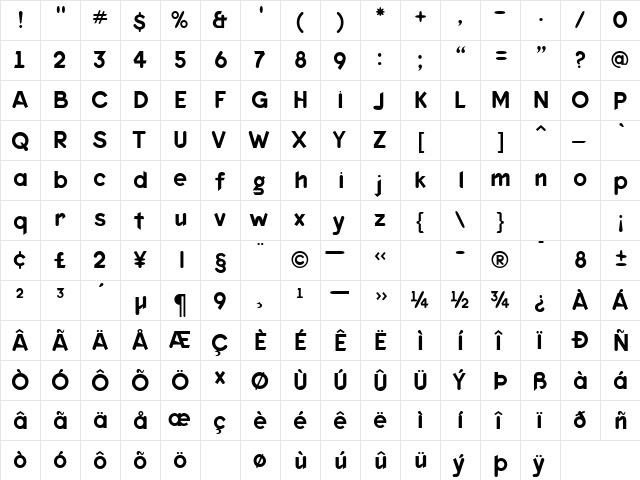
Keedy SansReg Font Preview
Keedy SansReg
Keedy SansReg Font Details
Design Context for Keedy Typeface
Keedy offers clean, dependable letterforms without strong stylistic allegiance, making it a practical choice for designers who need flexibility.
Pro Tip: Pair Keedy with a font of contrasting weight or personality to build a more expressive typographic hierarchy.